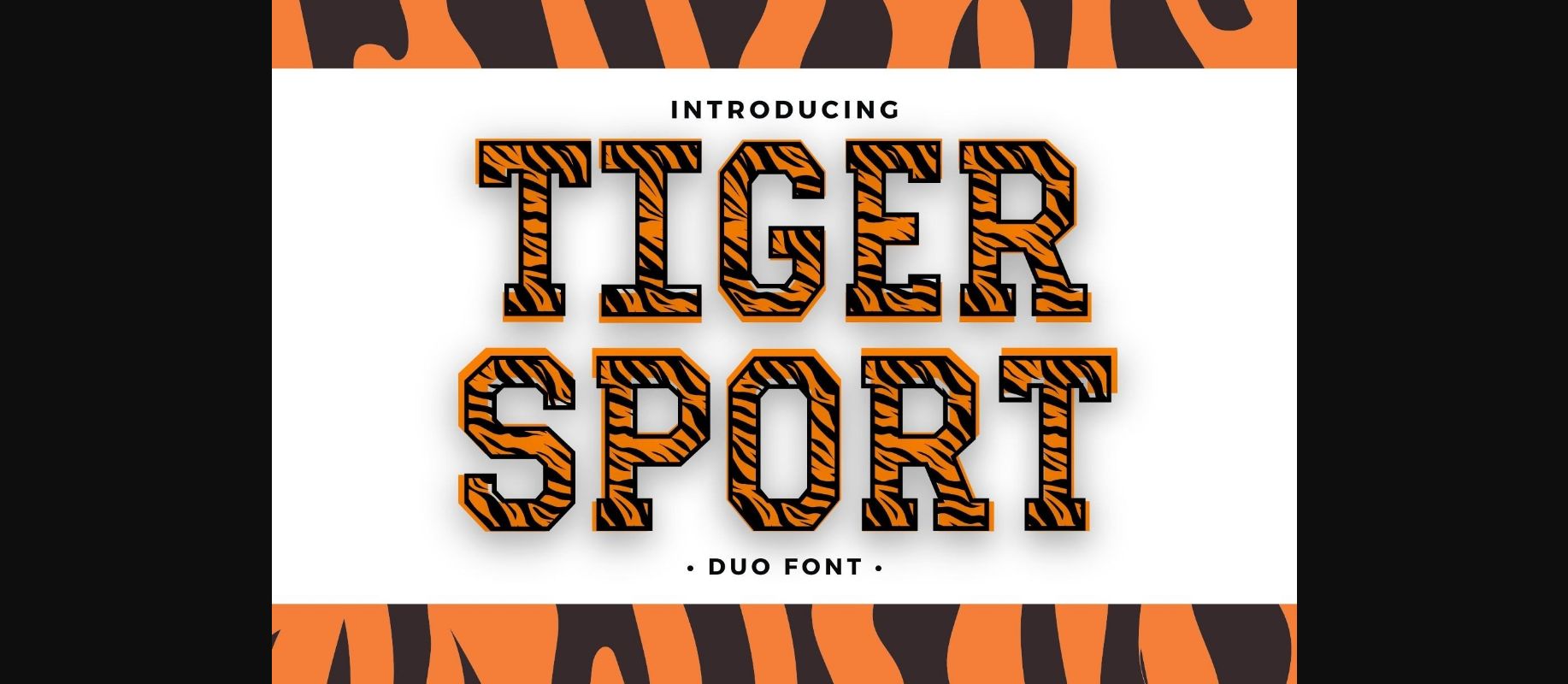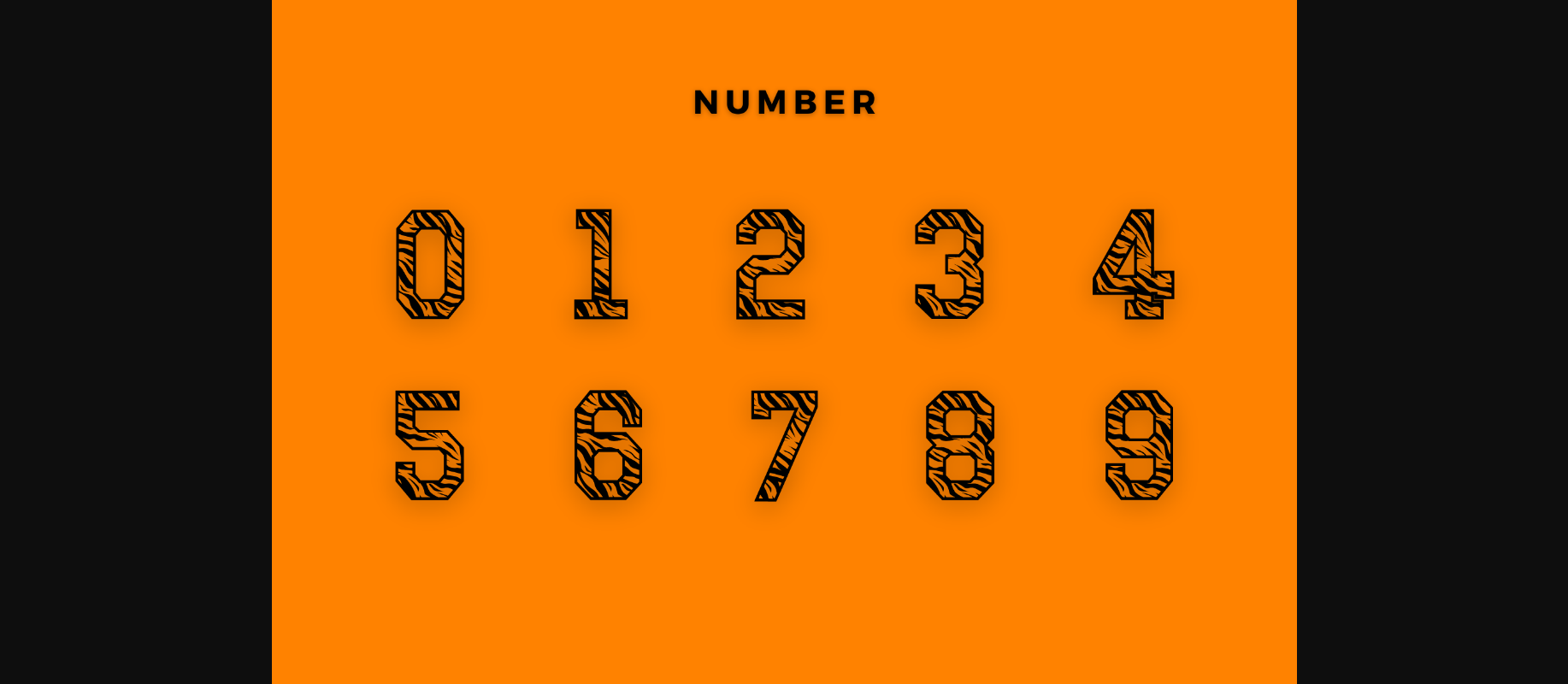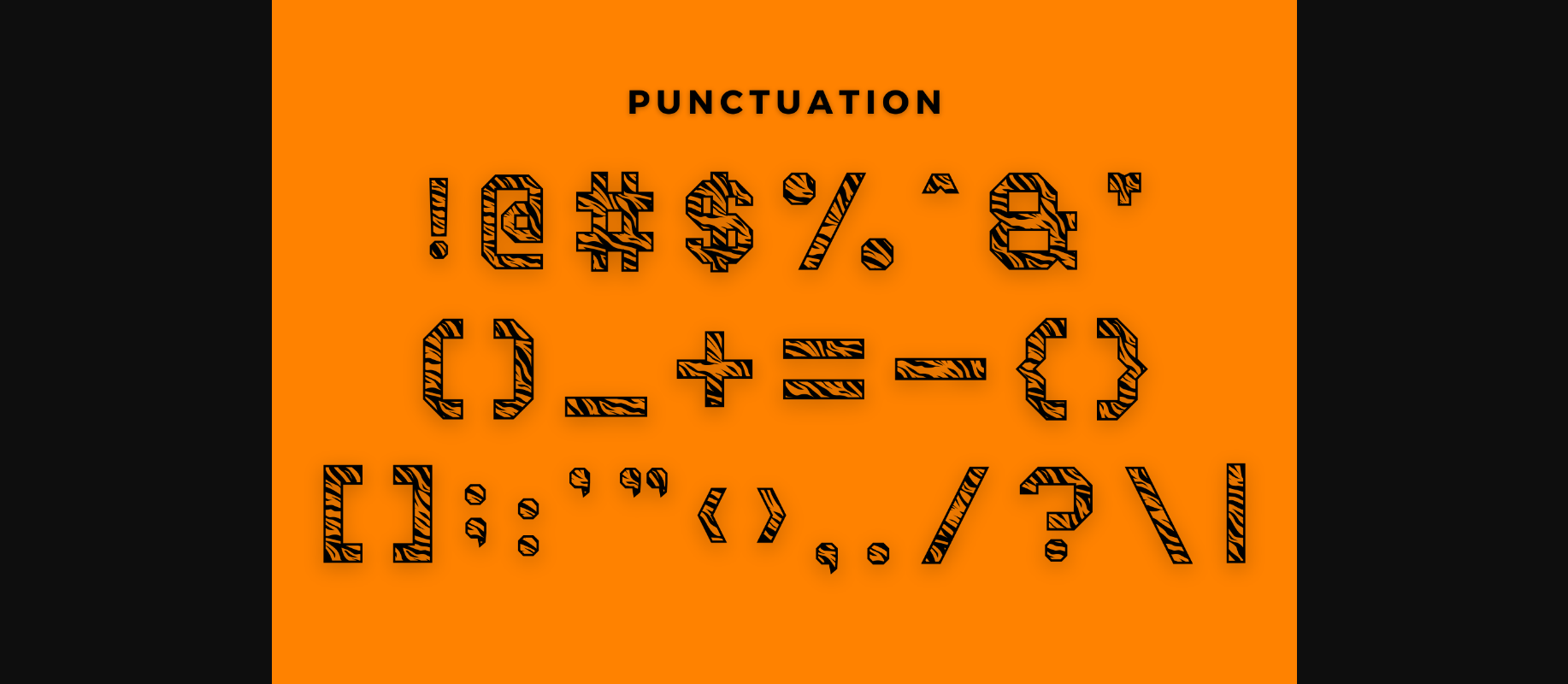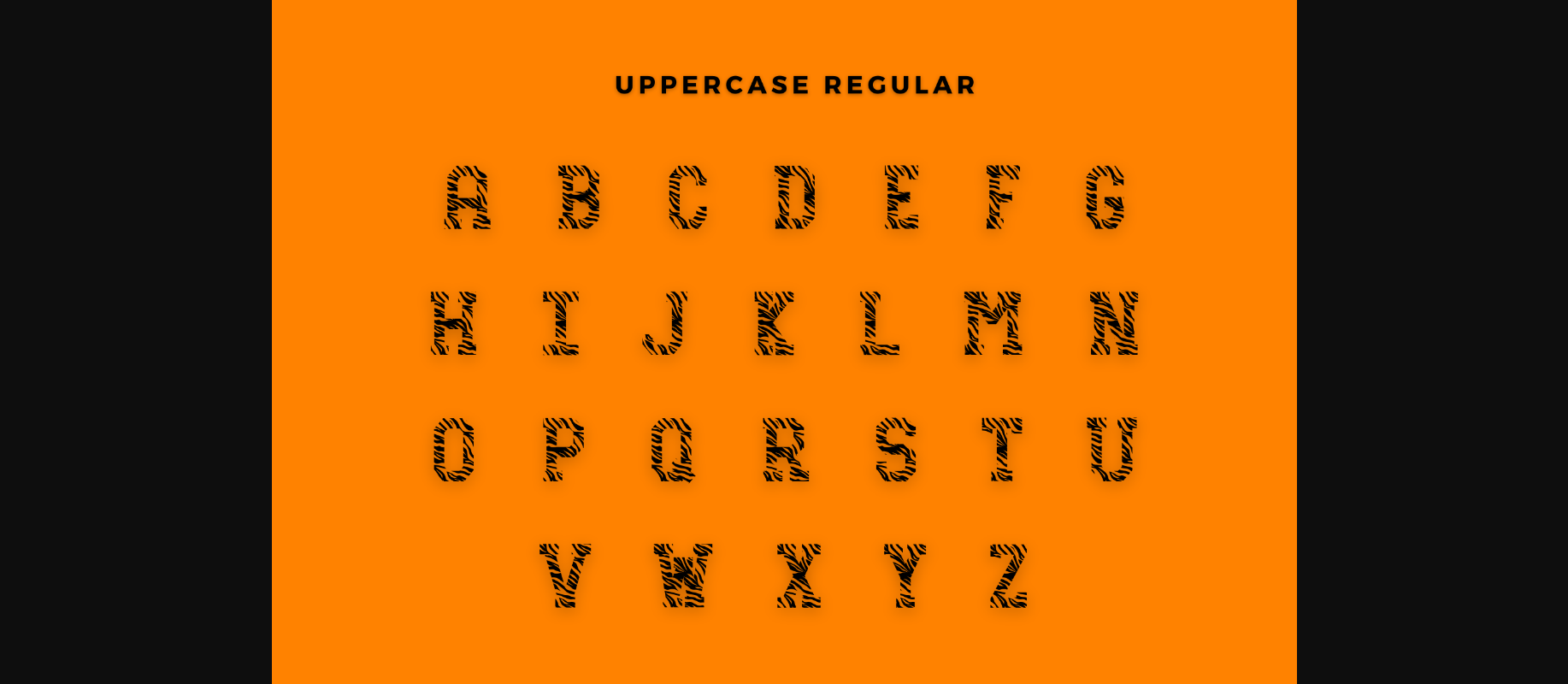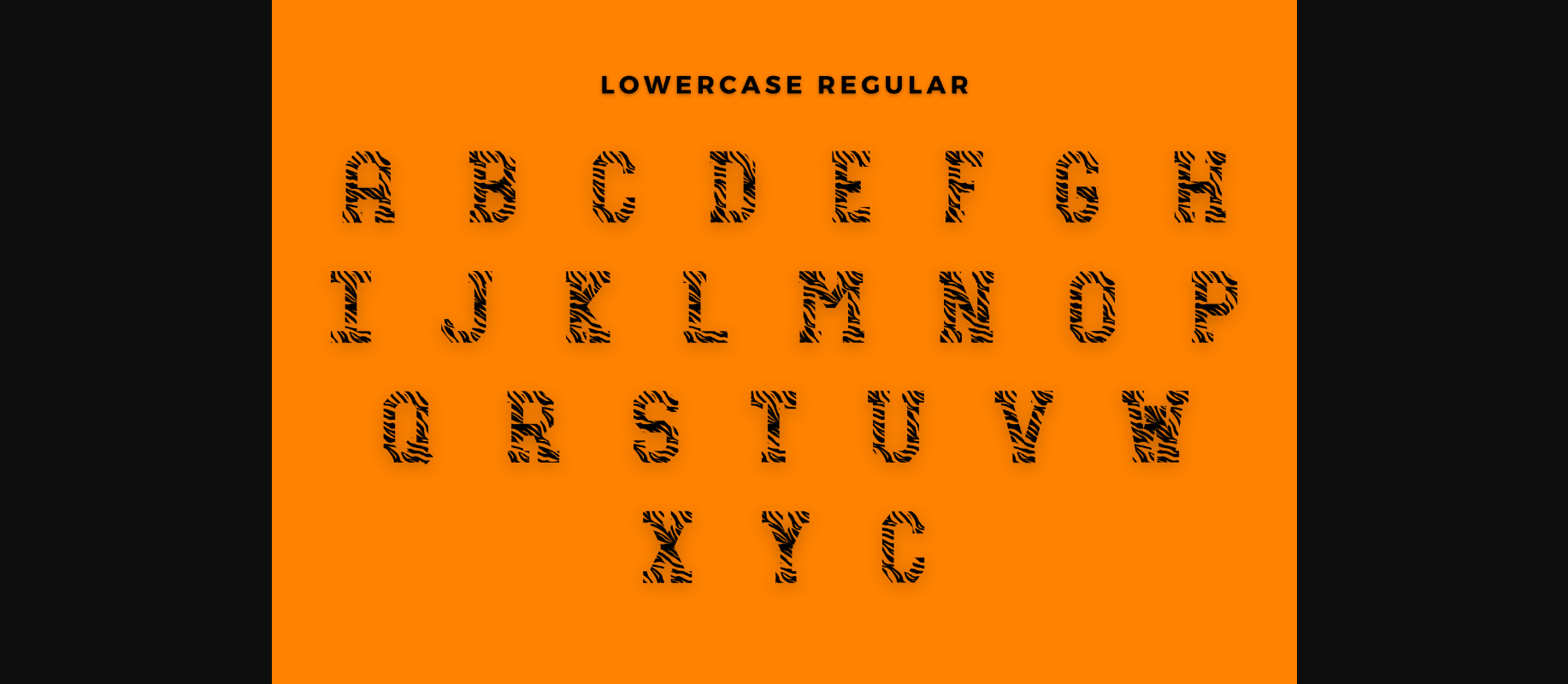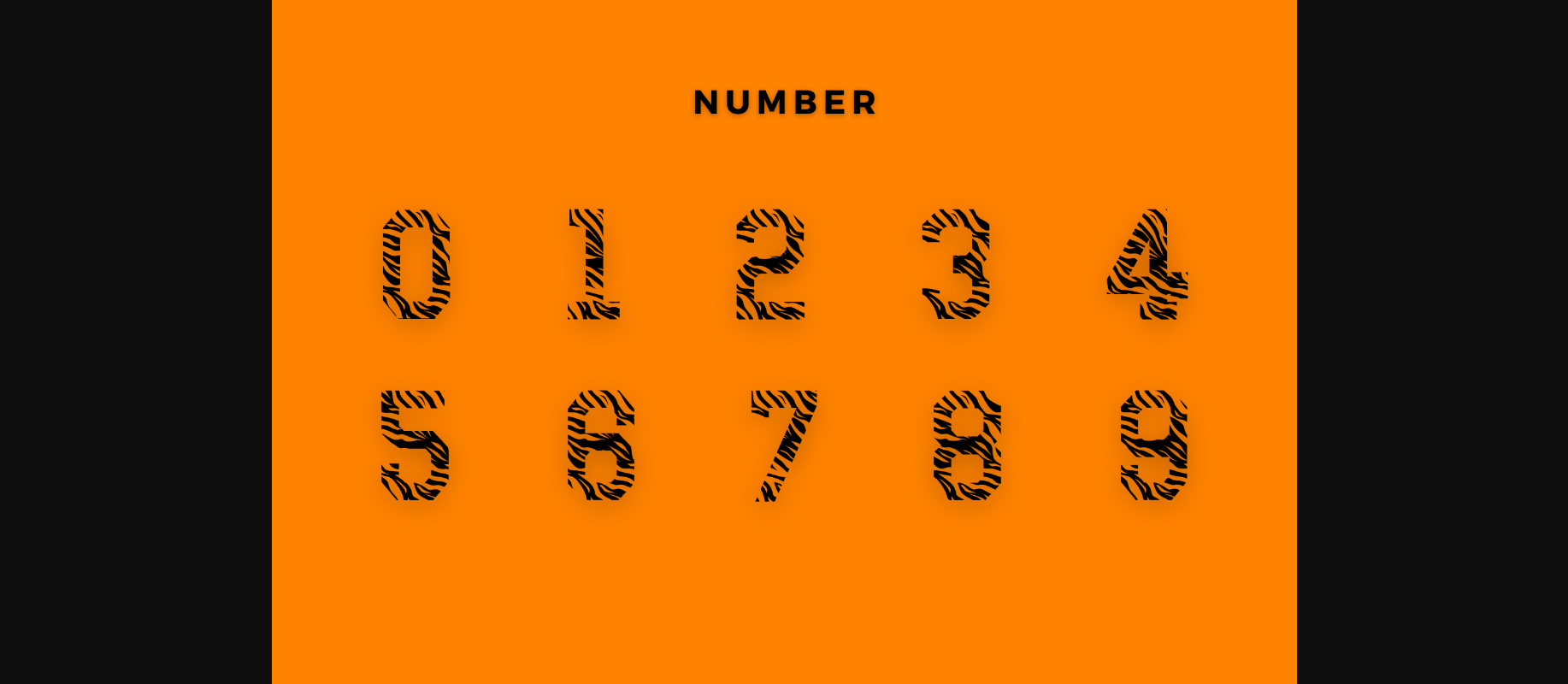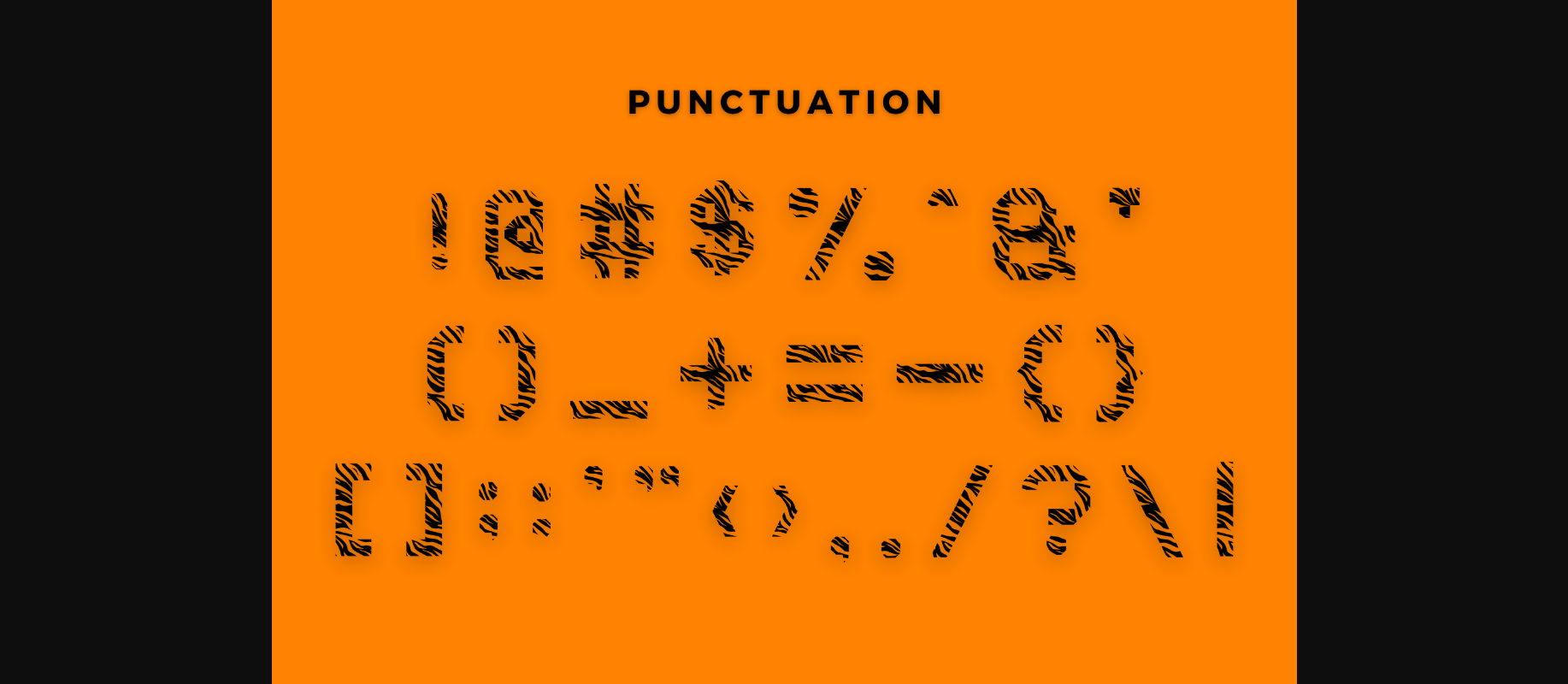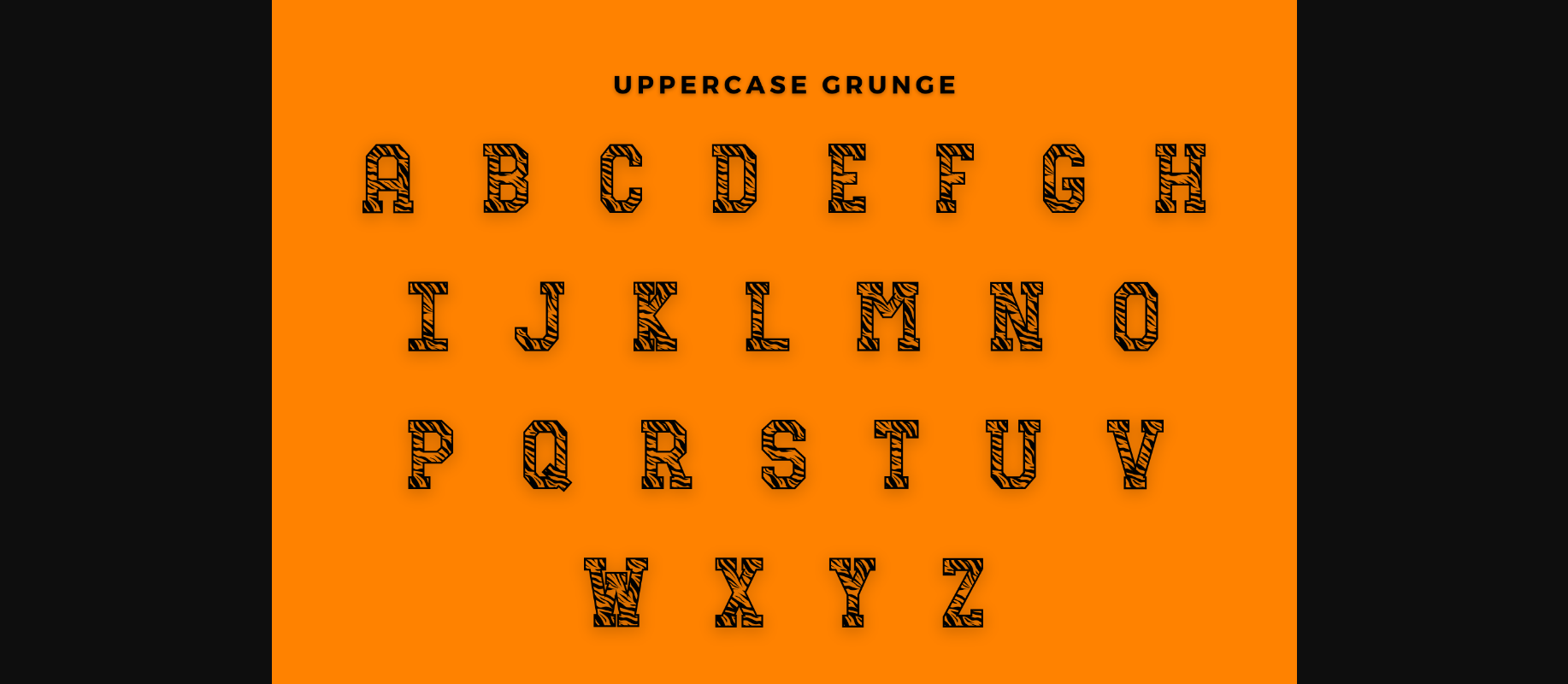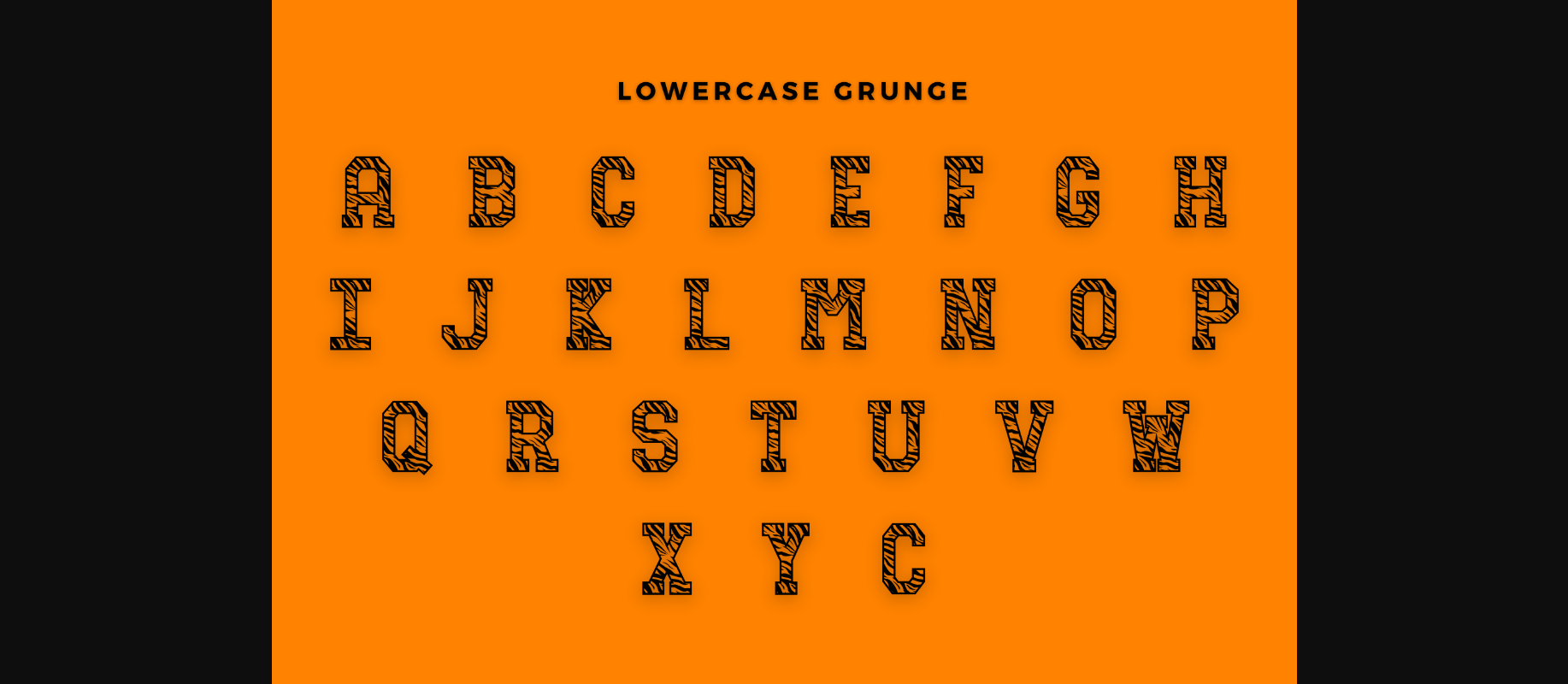
Tiger Sport Font
About Tiger Sport Font
Tiger Sport Font is a cool animal texture lettered and incredibly unique display font. You can use it for various projects, such as blog posts, logos, branding, ads, invitations, greeting cards, planners, photo albums, decorations, and much more. Add it to any of your designs, and enjoy the results!